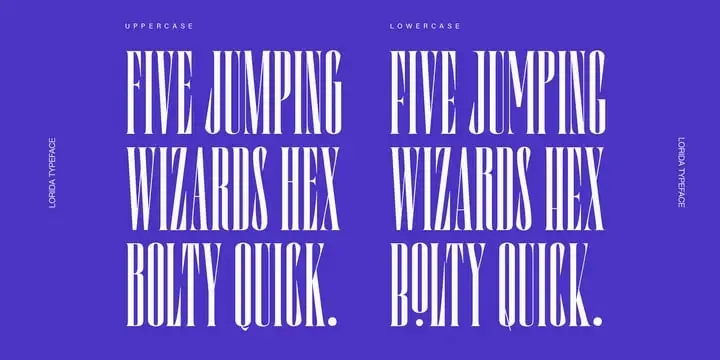
Happy Night Is A Cool Display Font By Brown Cupple Typeface
Need a font that screams “fun” while still looking polished? 😍 Happy Night is a playful display font that’s perfect for headlines, party posters, and anything that needs a dose of joyful energy! It comes with upper/lowercase, numerals, and punctuation—all wrapped in a modern aesthetic.
Hoefler&Co Surveyor Font Family Complete (Display Fine Text Screensmart Office)
Classic meets modern in this fully loaded font family! 🏆 Surveyor is a workhorse for both fine text and big headlines, with multiple weights to give you limitless flexibility. Whether for a luxury magazine or a sleek app, this is pure elegance.
Graptail-Lorida
Looking for something fresh and versatile? 🌟 Graptail-Lorida is a high-res digital asset that’s perfect for branding, social media graphics, and print projects. Easy to customize and super adaptable, it’s a must-have for any designer’s toolkit!
Gropled Font
Gropled is the typeface that does it all! 🎯 With multiple weights and a super distinct style, it’s perfect for logos, web design, and even user interfaces. Its clean structure makes it a go-to for modern projects that need a touch of personality.
Gunterz Medium By Arwan Sutanto
Clean, modern, and oh-so-readable! ✨ Gunterz Medium is a contemporary typeface that balances style with clarity, making it great for both digital and print. Those stylish letterforms are *perfect* for branding and editorial designs.
Gyahegi Serif Font (C) Hishand Studio
Elevate your projects with this stunning serif! 🦋 Gyahegi blends classic elegance with modern detail, and comes in multiple weights for any mood. It’s ideal for luxurious branding, wedding invites, or editorial layouts.
Her Name Is Rie
Talk about a mood! 🌸 “Her Name Is Rie” is an elegant digital design asset that’s perfect for personal projects or commercial work. High-quality and easy to customize, it adds a unique artistic touch to logos, posters, and branding.
Joughn Condensed Sans Serif Font
Short on space but big on style? 📏 Joughn is a sleek, condensed sans serif that fits perfectly into tight layouts without sacrificing legibility. Multiple weights mean you can create bold headlines or clean subtext with ease.
Joyl-Liquid Font
Fluid, playful, and totally unique! 💧 Joyl-Liquid brings a creative twist to your text with its liquid-like curves. Available in Light, Regular, and Bold, it’s perfect for branding, logos, or any project that needs a splash of fun.
Gleamore Font
Gleamore is pure elegance in type form. ✨ With multiple weights and a contemporary-classic hybrid vibe, it’s a great choice for everything from fashion branding to sophisticated web design. Uppercase, lowercase, numerals—all included!
Garmint Sans Serif Display Font
Modern, clean, and incredibly versatile! 🌟 Garmint is a sans serif display font that works just as well for bold headlines as it does for elegant body text. It’s a professional powerhouse for branding, print, and web design.
Future Tense Font (C) Borges Lettering-Extended Latin
Step into the future of typography! 🚀 This font by Borges Lettering supports extended Latin characters, making it perfect for multilingual projects. Its contemporary design and multiple weights make it a true asset for global branding.
Gallinari Extrabold Cond By Anwar Patihan
Make a bold statement with this condensed powerhouse! 💥 Gallinari Extrabold Cond is all about impact, with thick strokes and a narrow footprint. Ideal for posters, headlines, and branding that demands attention.
Eureka Serif Display Font By Endeavour Studio
Eureka! 🎉 This serif display font is stunningly elegant and perfect for making a statement. With multiple weights and OTF/TTF formats, it’s a fantastic choice for high-end branding, magazines, and luxury print work.
Flinders Typeface
Flinders is the all-rounder you need in your font drawer! 🛠️ With multiple weights, multilingual support, and a clean modern look, it works beautifully for logos, web design, and anything in between.